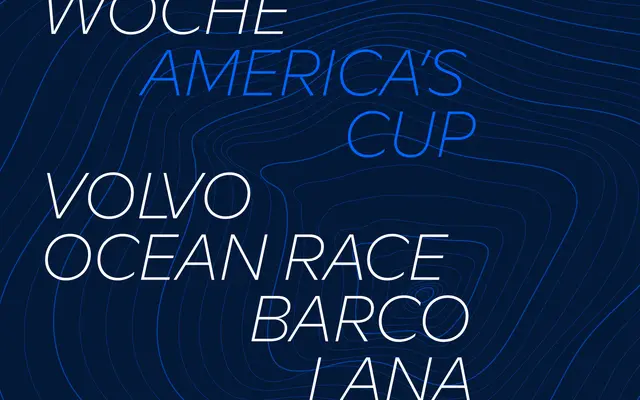
Multima specimen from Studio Rene Bieder
A geometric sans in ten weights with matching italics, offering a broad range of OpenType alternates for single and double-storey character variants.
Running from Thin through to an Ultra weight, Multima covers an unusually wide tonal range within a single family, with full italic companions throughout. OpenType features include tabular figures, fractions, case-sensitive forms and a set of alternates covering 'a', 'g', 'y', 't', 'ß', 'G', '3' and directional arrows, giving designers meaningful control over personality. The result is a workhorse geometric suitable for both text and display use across branding and editorial contexts.
Multima presents clean, geometric proportions with a wide weight range and alternate single-storey characters, placing it firmly in the geometric sans tradition. The availability of alternate forms for 'a', 'g' and 'y' signals influence from humanist geometry hybrids.